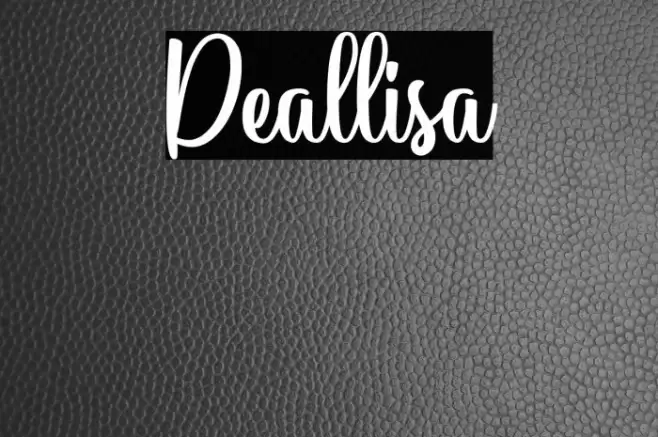
Deallisa Font
Deallisa Description
This font exhibits a lively and flowing script style, characterized by its smooth, cursive strokes and elegant loops. The uppercase letters are bold and prominent, with a playful yet sophisticated appearance. The lowercase letters maintain a consistent flow, enhancing readability while retaining a stylish flair. Numbers and special characters are crafted with the same attention to detail, ensuring a cohesive look across all elements. This font's design is ideal for projects that require a personal touch, combining both modern and classic script elements to create a versatile and appealing typeface.
A lively and elegant script font with smooth, flowing strokes from Uncategorized fonts.
- Proposed Projects: Ideal for wedding invitations, greeting cards, branding, and social media graphics.
- Use Case: Logos, Headlines, Invitations